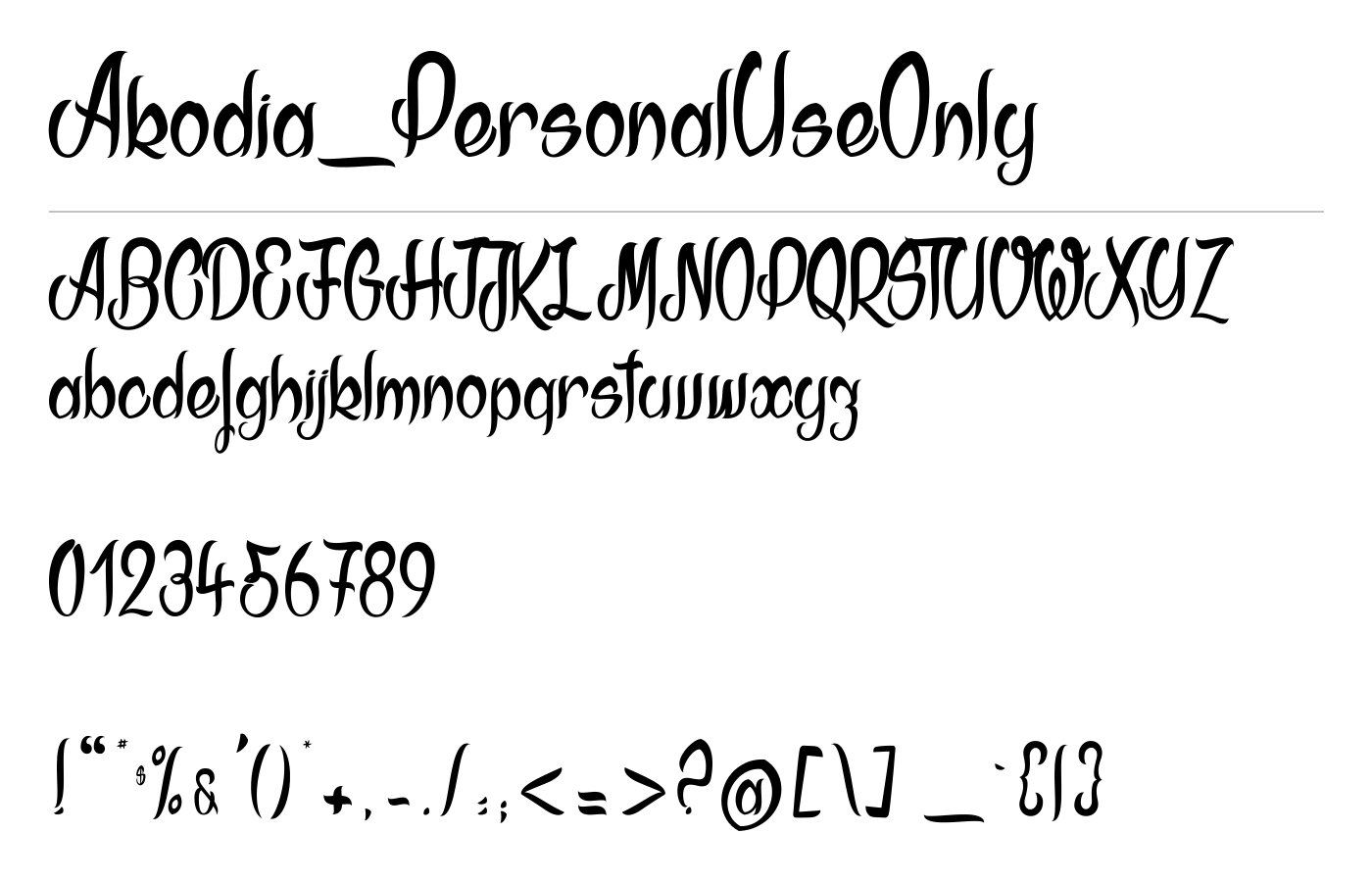
Akodia_PersonalUseOnly is a distinctive script font with a playful yet elegant vibe, featuring tall, slender letterforms with smooth, flowing curves and moderate stroke contrast. Its unique character shapes and swashes make it ideal for creative projects that need a personal and artistic touch, such as invitations, branding, and headlines. This font works best in display settings where its charm and personality can truly shine.